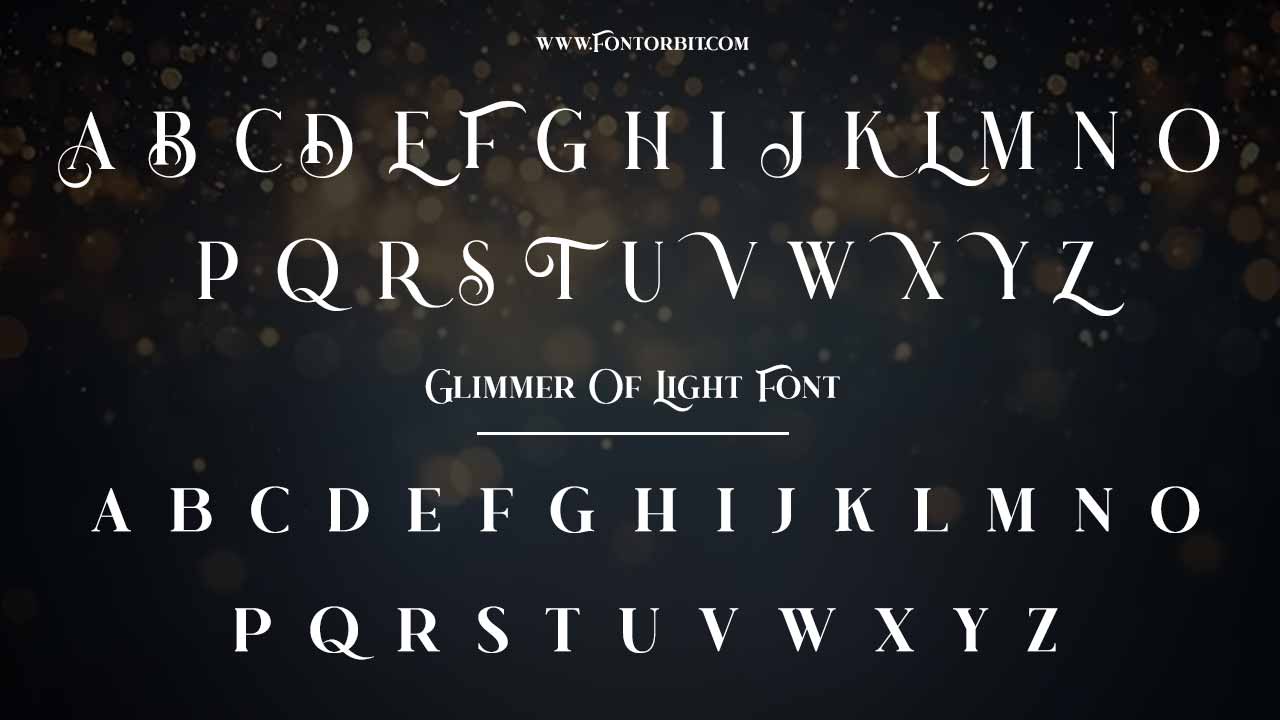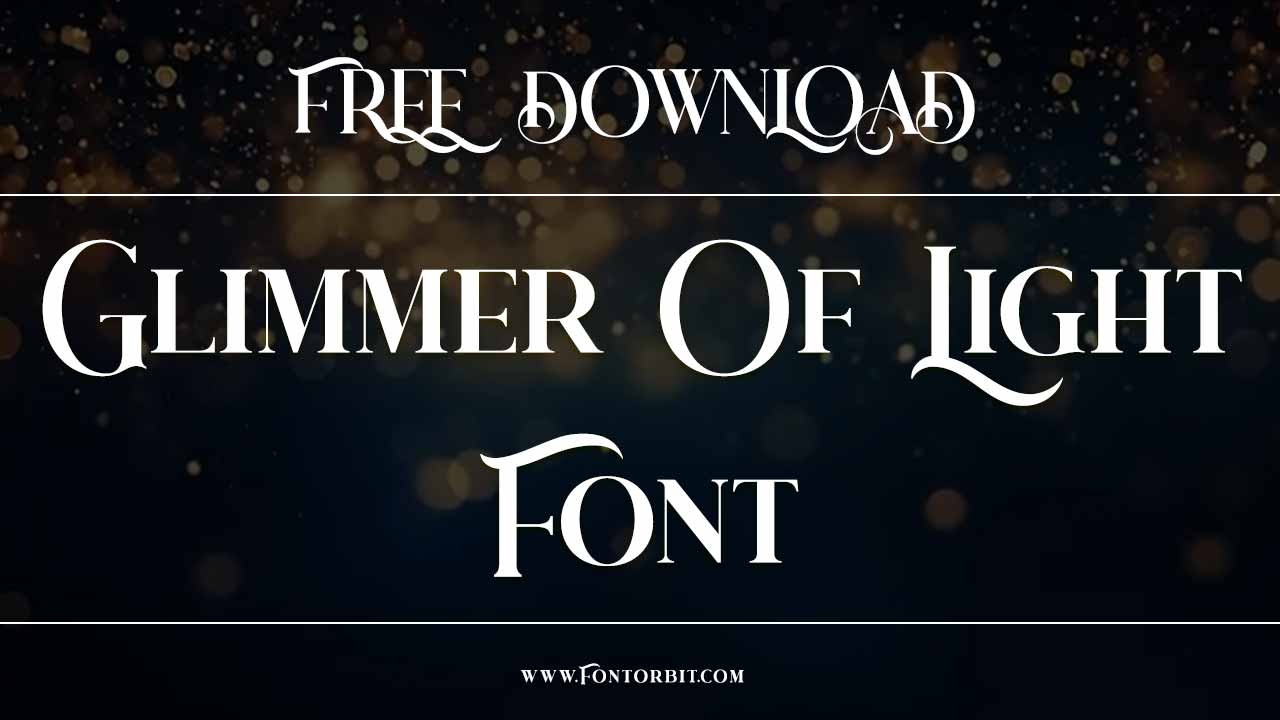
The Glimmer of Light font, created by the talented designer Sansakerta, brings a unique charm to your designs with its elegant, vintage-inspired style and modern appeal. Whether you’re working on a personal project or a professional design, this incredibly versatile font can elevate your work, adding sophistication and class. Here’s how to make the most of Glimmer of Light in your creative process.
Glimmer Of Light Font Family
The Glimmer of Light font family includes just one variant:
- Glimmer of Light Regular
Though limited in variants, the regular style is highly adaptable and works well across a wide range of design applications.
Key Features Of Glimmer Of Light
What Makes Glimmer Of Light Stand Out?
Here’s what you can expect from this decorative font:
- Vintage and Modern Blend: Glimmer of Light blends Art Deco inspiration with modern design elements, making it a timeless choice for various creative needs.
- Light Serif Style: The subtle curves and delicate details of the serif design offer a sophisticated touch to any project.
- Stylish Alternate Glyphs & Ligatures: These features allow you to create seamless, flowing text with a refined appearance.
- Incredibly Versatile: Whether for invitations, branding, or posters, this font works well in a variety of contexts, bringing a unique flair to your designs.
Applications Of Glimmer Of Light Font
Glimmer of Light is perfect for a wide range of design projects. Here are a few examples:
1. Headlines & Branding
The Bold, Elegant Nature Of The Font Makes It Ideal For Headlines. Use It In:
- Magazine layouts
- Website headers
- Product branding
- Company logos
2. Posters & Invitations
Whether designing a movie poster, concert flyer, or wedding invitation, Glimmer of Light adds a stylish, vintage touch to your promotional materials.
3. Cards & Signage
From greeting cards to signage, this font can enhance the readability and aesthetics of your messages.
Perfect for:
- Greeting cards
- Event signage
4. Web Design
Glimmer of Light’s elegance makes it an ideal choice for web headers, buttons, and navigation. It’s also great for creating user-friendly, stylish call-to-action elements.
Glimmer Of Light Character Map: Unlock Its Full Potential
The character map of Glimmer of Light reveals the full range of glyphs, giving designers more creative control. It includes:
- Basic Latin characters
- Ligatures and alternate glyphs that provide flexibility in creating custom text designs
- Stylish flourishes that add unique details to your typography
These features allow you to create more complex and elegant layouts, perfect for modern and retro-inspired projects.
Why Choose Glimmer Of Light?
The glimmer of Light isn’t just a font; it’s a design tool that can bring your creative vision to life. Here’s why it’s a great addition to your font collection:
- Vintage Appeal with Modern Versatility: The blend of classic Art Deco elements and contemporary design makes it a perfect fit for both retro and modern styles.
- Elegant Ligatures and Glyphs: These intricate features allow for seamless, professional designs that stand out.
- Perfect for a Variety of Applications: Glimmer of Light offers endless possibilities from personal projects to business branding.
Final Thoughts
The Glimmer of Light font is a fantastic choice for anyone looking to add a touch of elegance to their design projects. Its vintage inspiration, stylish ligatures, and light serif style make it a perfect fit for everything from invitations to branding. Whether you’re working on personal or commercial projects, Glimmer of Light adds a professional touch that stands the test of time.
3.What Makes Glimmer Of Light Different From Other Fonts?
7.What Are Some Similar Fonts To Glimmer Of Light?If you’re looking for fonts similar to Glimmer of Light, you might want to explore other light serif fonts with a vintage or modern feel. Some fonts worth considering include Bookman Slab Serif Font, Modern Fonts, and typewriter fonts. These alternatives also feature serifs and share the decorative aesthetic found in Glimmer of Light.